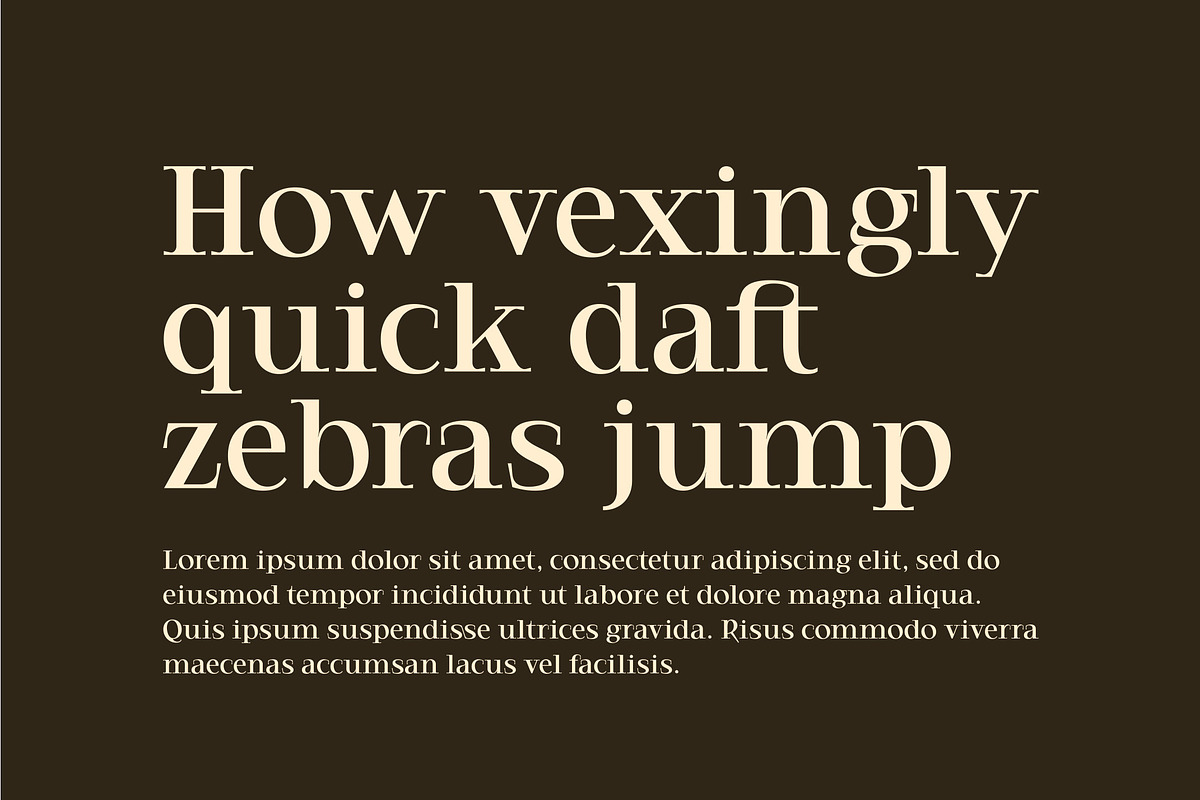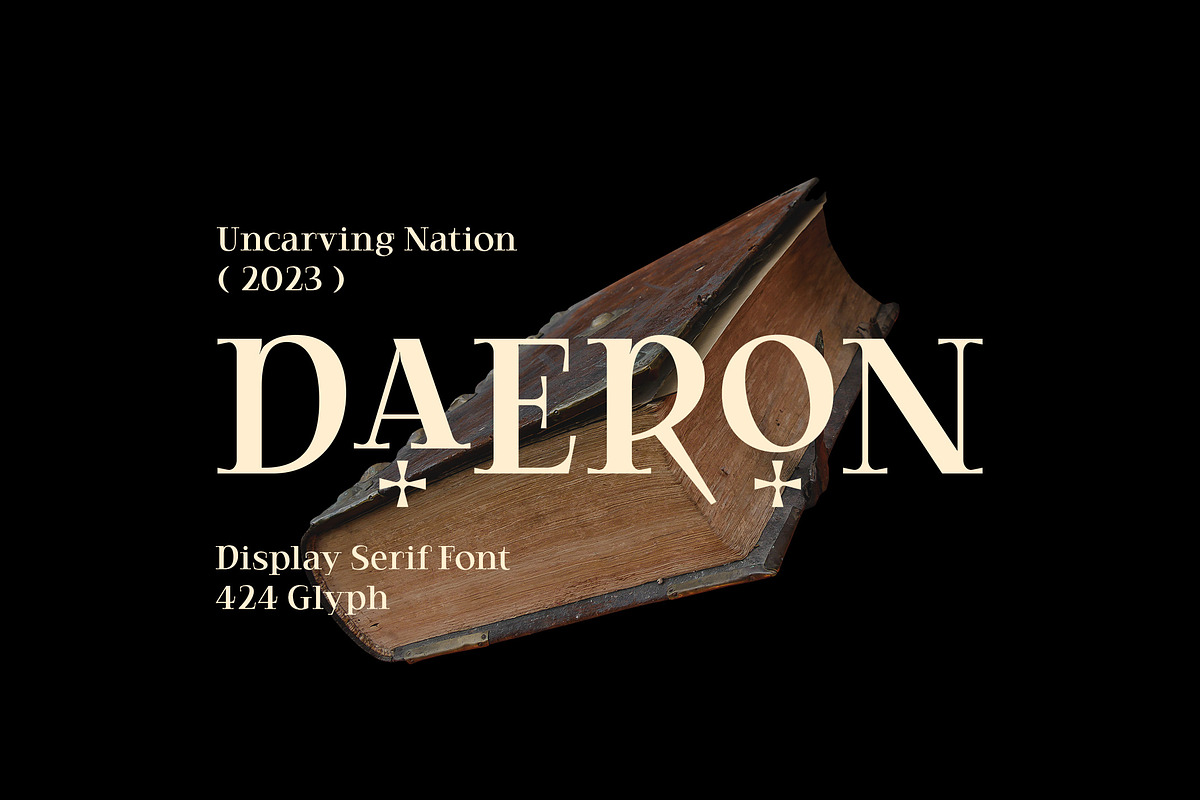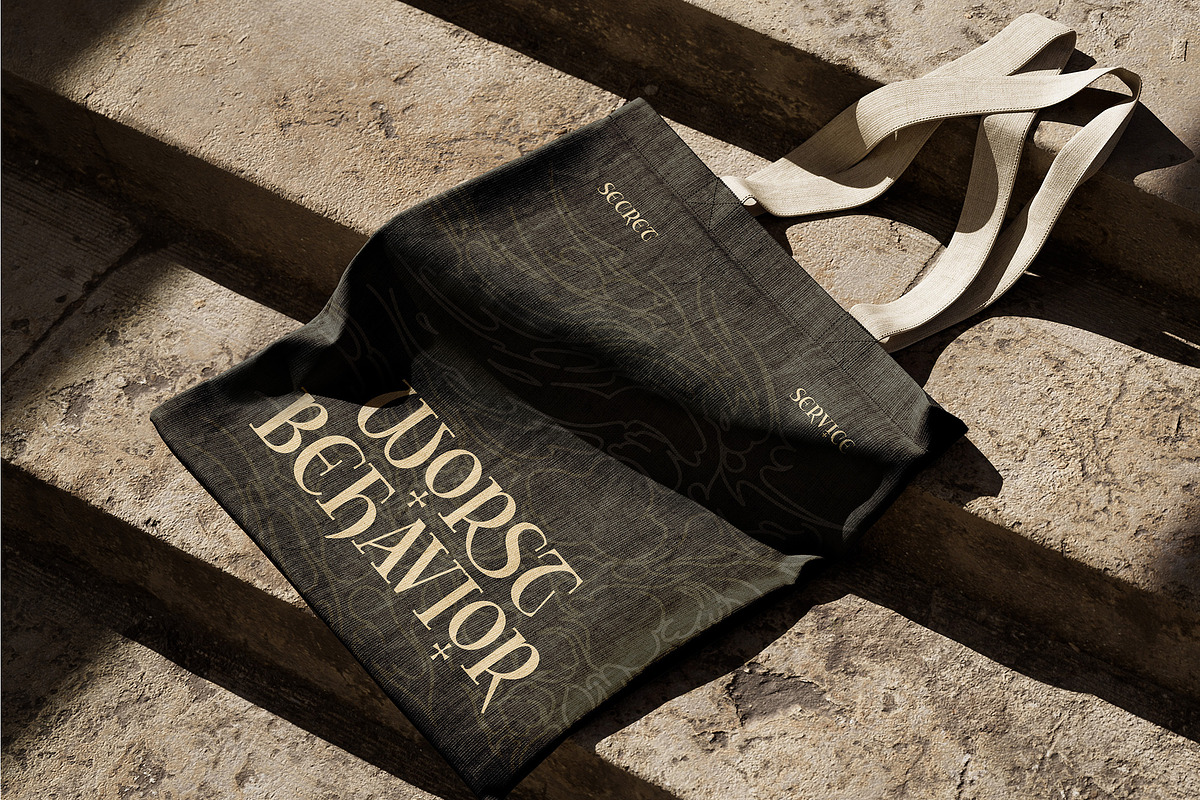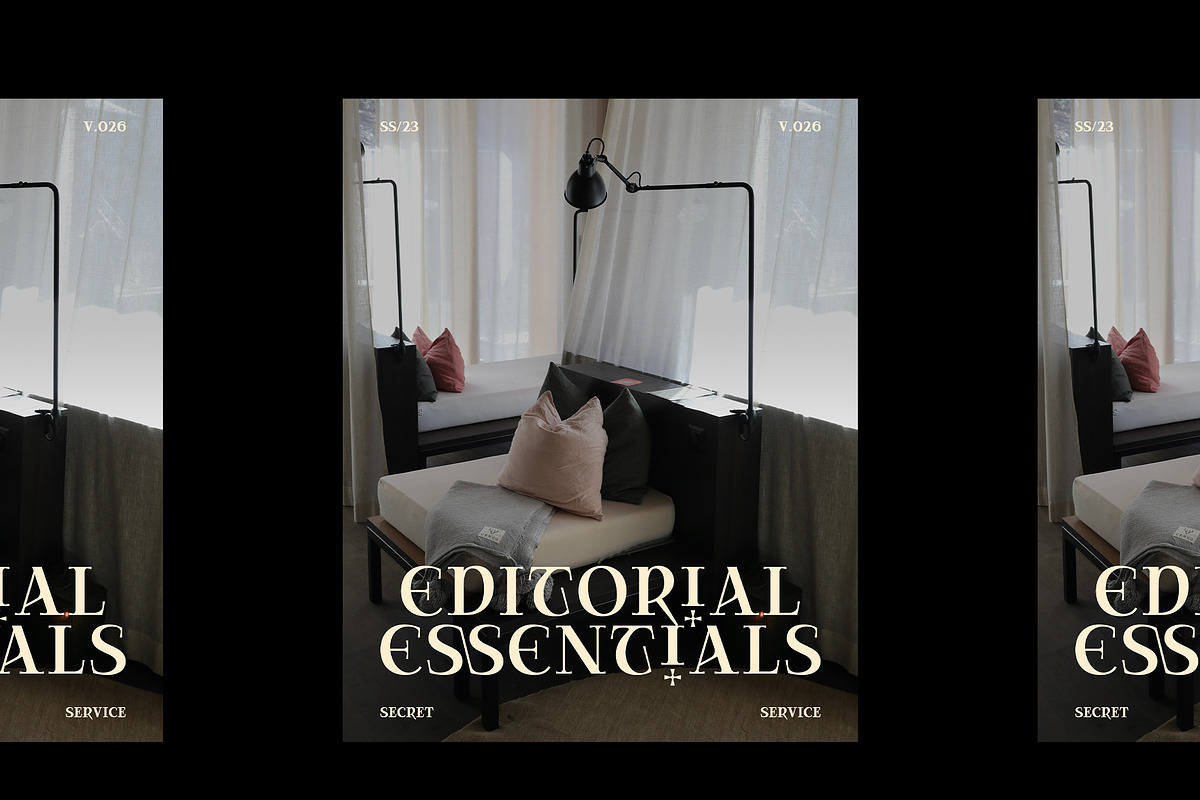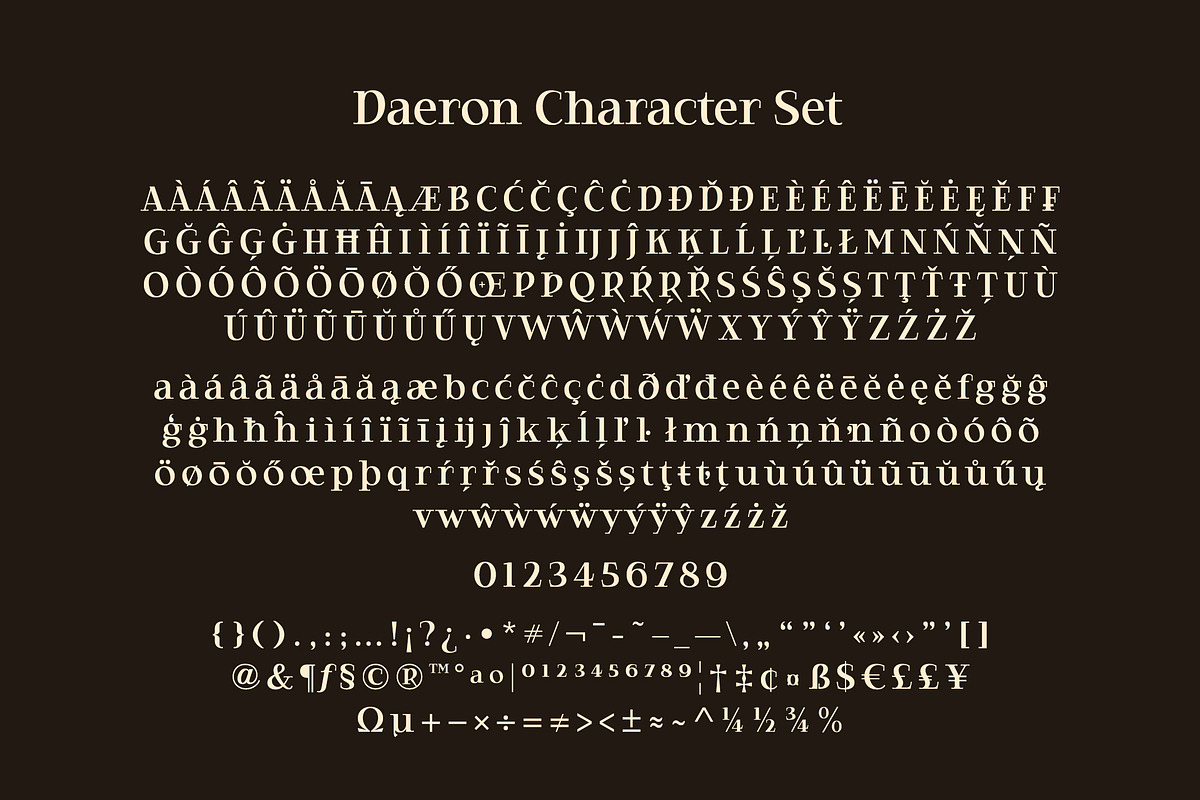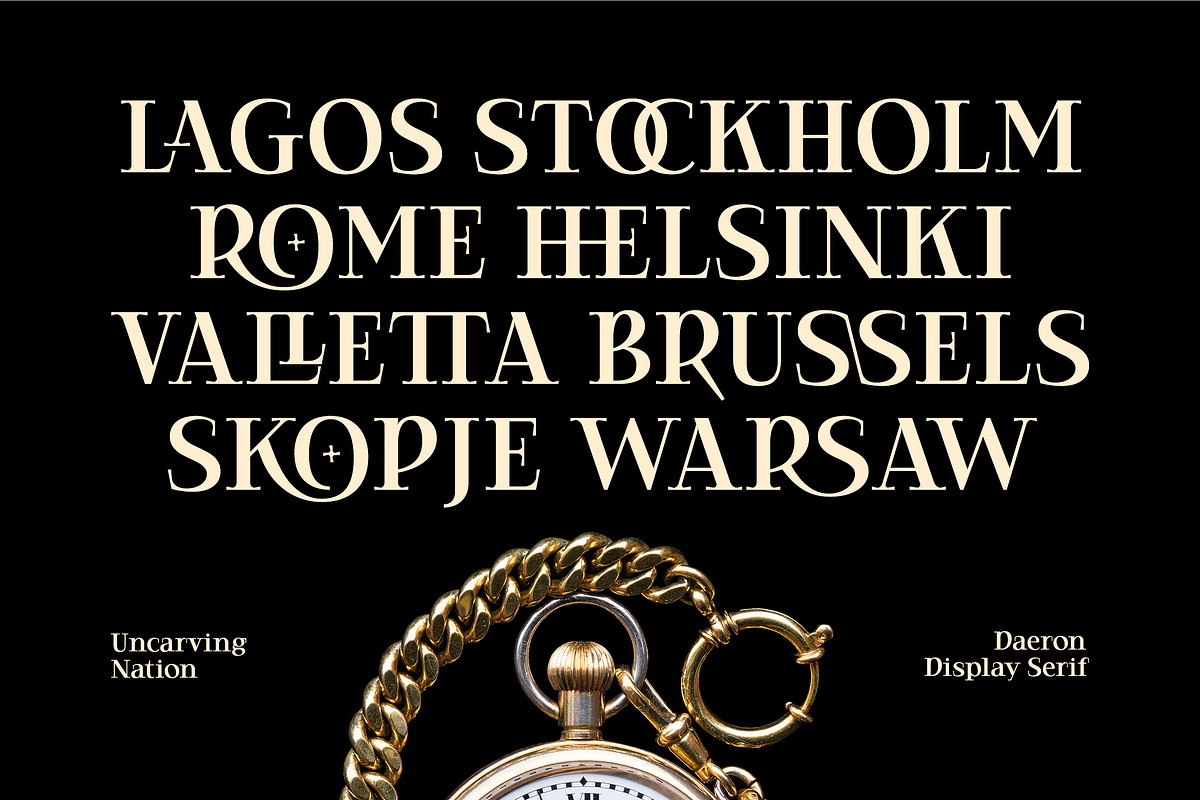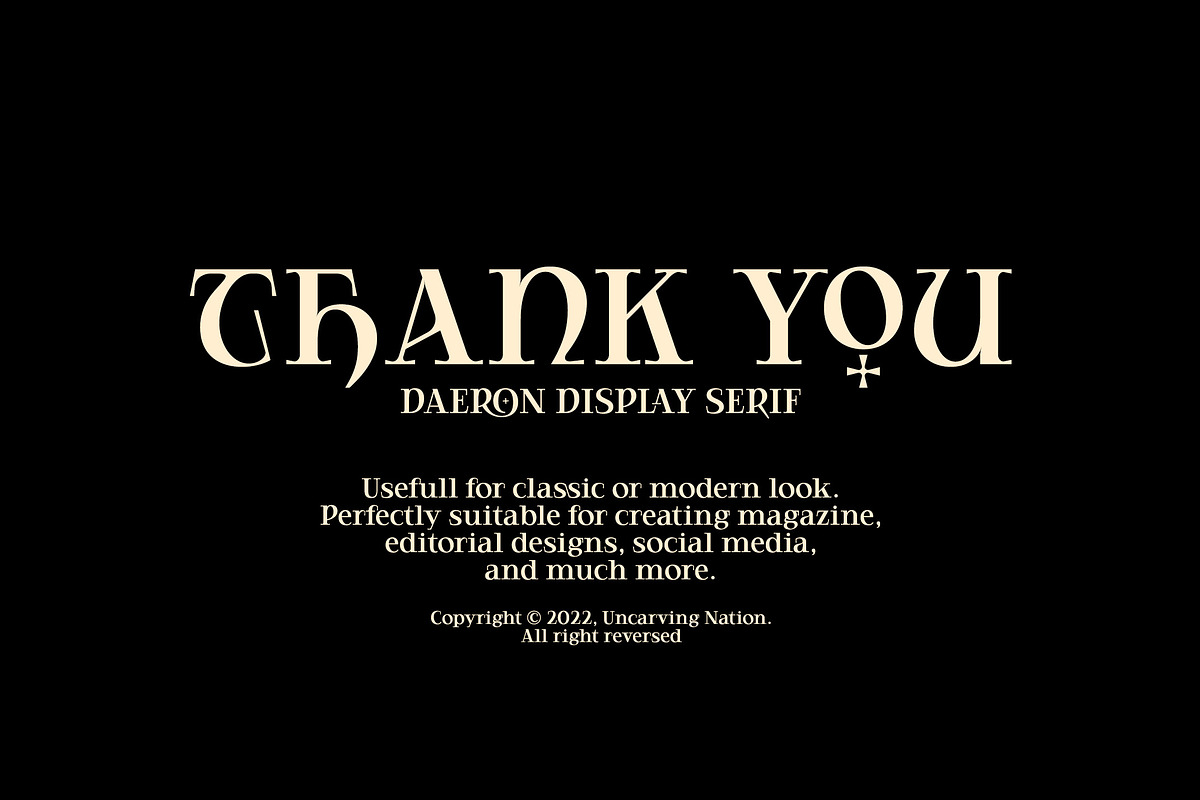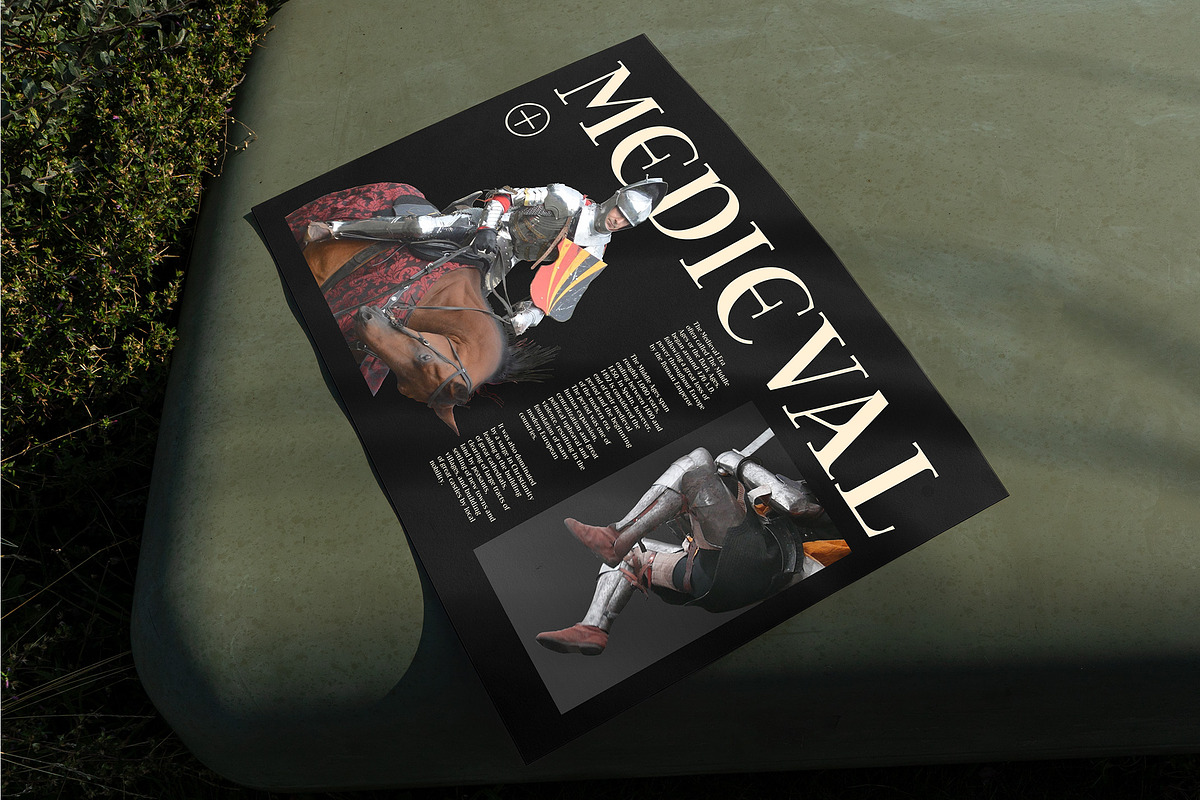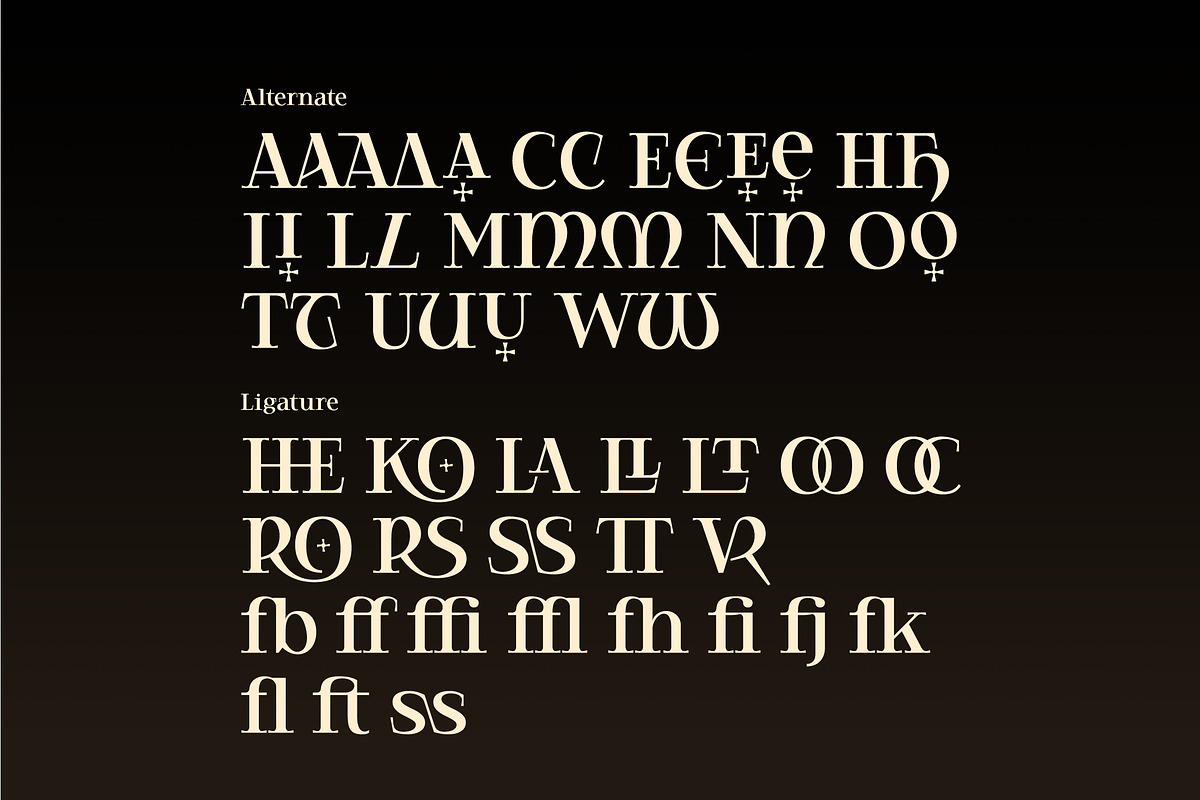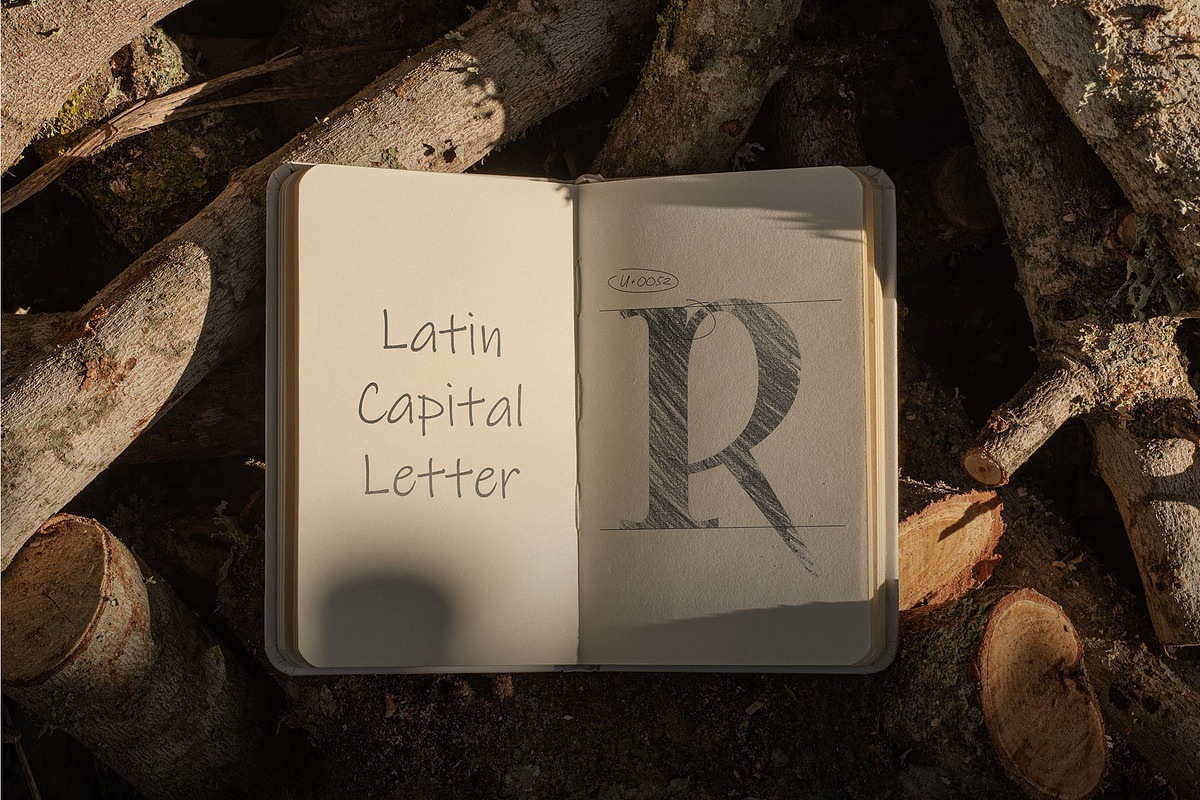
Daeron - Display Serif
Daeron is a display typeface serif usefull for classic or modern look. Perfectly suitable for creating Logotype, printed quotes, invitations, cards, product packaging, headers, Letterhead, Apparel , Web design, Magazine, Book, etc.